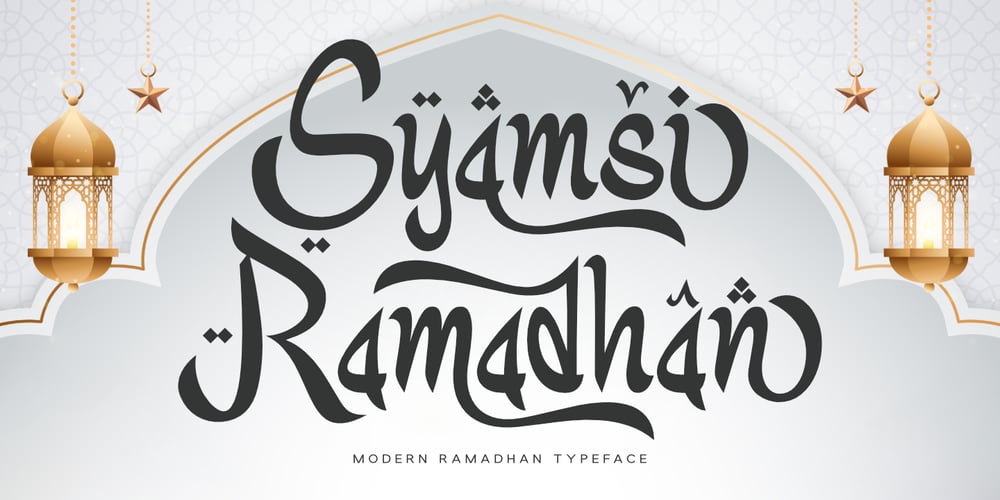
Syamsi Ramadhan Font Family was designed by Saiful Anwar and published by Sealoung. Syamsi Ramadhan contains 1 styles and family package options. Timeless Elegance in Every StrokeSyamsi Ramadhan is a Modern Ramadhan Typeface that seamlessly blends traditional beauty with contemporary design. Its smooth curves and refined details exude a sense of luxury, making it a perfect choice for projects that demand sophistication.Perfect for Cultural and Luxury DesignsIdeal for logos, wedding invitations, and high-end branding, Syamsi Ramadhan brings an elegant touch that captivates. Its fusion of traditional elements with modern aesthetics makes it an inspiring and eye-catching typeface.Crafted for Unlimited CreativitySyamsi Ramadhan empowers designers to create with confidence. Its harmonious balance of elegance and modernity ensures your work leaves a lasting impression while staying true to rich cultural heritage.Syamsi Ramadhan – Modern Ramadhan Typeface Features:✔ Ready-to-Use Alternate Characters✔ Punctuation, Numbers, and Symbols✔ Uppercase and Lowercase Letters✔ OpenType Features✔ Multilingual Support for Various LanguagesThank you, and best of luck with your designs!